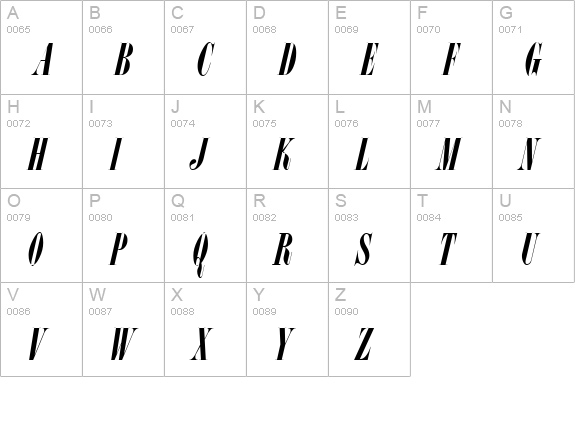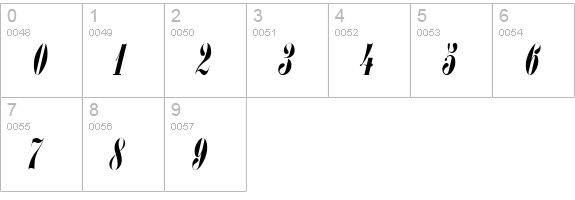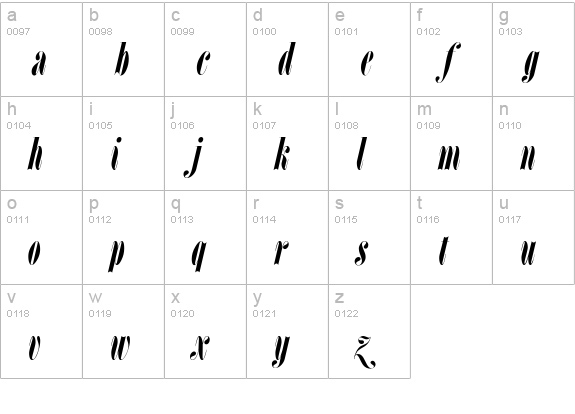
L Italic Font Details
L Italic is a distinctive, italic variant in the L typeface family \xE2\x80\x94 well suited to design and typography projects.
Introducing the captivating L Italic font, a true masterpiece in the world of typography. This exquisite font effortlessly combines elegance and creativity, making it a perfect choice for any design project that demands a touch of sophistication. With its sleek and slanted strokes, L Italic font exudes a sense of modernity and refinement. Each letter is meticulously crafted, featuring delicate curves and graceful lines that create a harmonious flow. This font is a true testament to the artistry of typography, offering a unique and versatile style that is bound to captivate any audience. But what truly sets L Italic font apart is its remarkable attribute of being freely available for download at FontsMarket.com. Yes, you heard it right! This stunning font is not only visually striking but also conveniently accessible to all designers and enthusiasts out there. Now, you can effortlessly elevate your projects with this exceptional font without any financial constraints. Whether you're creating eye-catching logos, striking advertisements, or elegant branding materials, L Italic font is here to elevate your designs to new heights. Its versatility allows it to blend seamlessly into various design styles, from modern and minimalistic to bold and expressive. The possibilities are truly endless when you have L Italic font at your disposal. So why wait? Unleash your creativity and embrace the beauty of L Italic font. Download it for free today at FontsMarket.com and witness the transformative power it brings to your designs. Let this font become your trusted companion, guiding you towards achieving design excellence effortlessly. Experience the sheer beauty and freedom that L Italic font offers, and elevate your design journey to new and extraordinary levels.